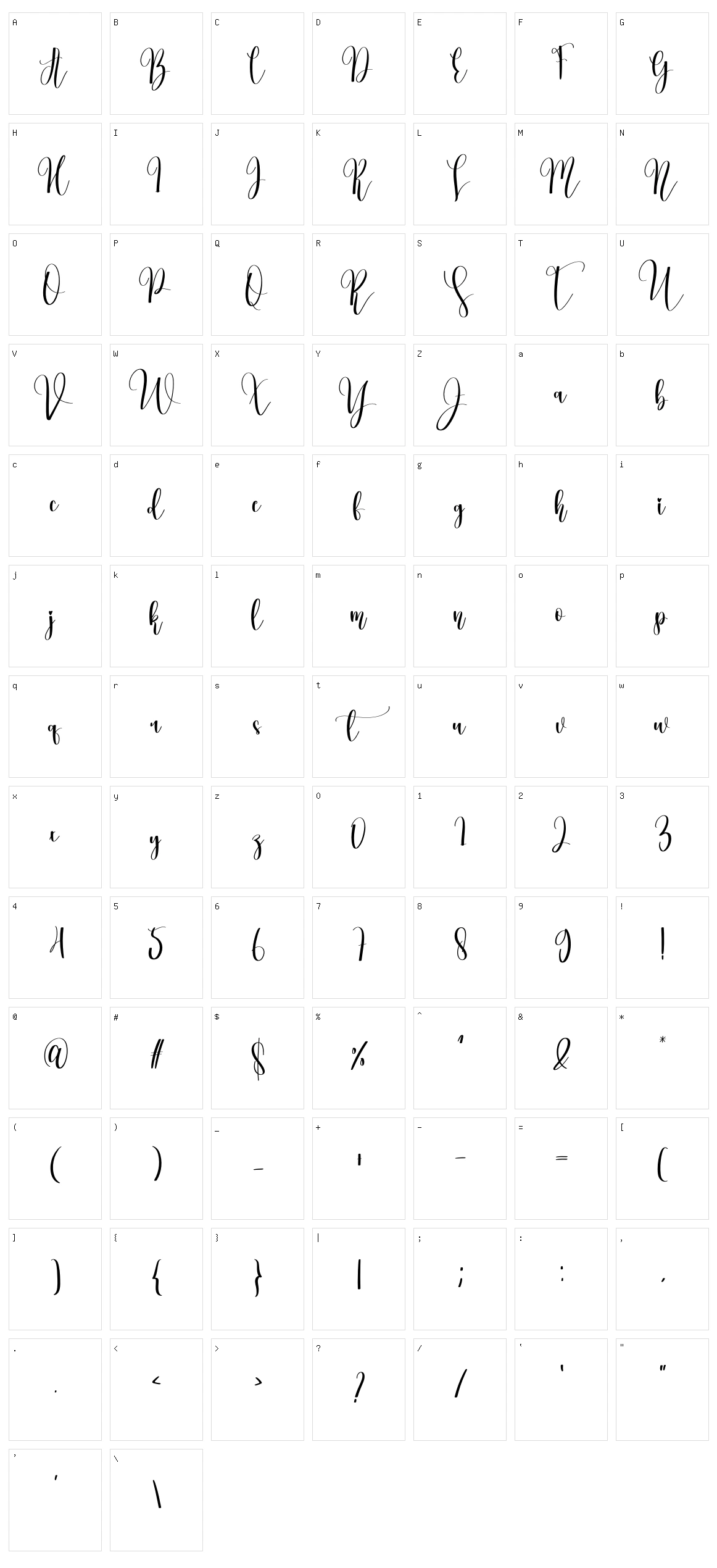
The free font December Christmas is carefully designed by Scratchones, showcasing a thoughtful balance of creativity and usability and falls under the Script font style. When you download the ZIP file, it contains only 181.81 KB of font files, making it lightweight and quick to download. Please review the license details below to understand permitted usage and distribution rights. If license information is not available, we recommend using this font for personal projects only or contacting the author directly for commercial usage permissions.